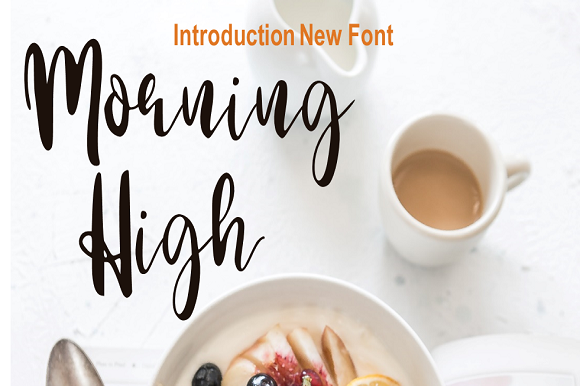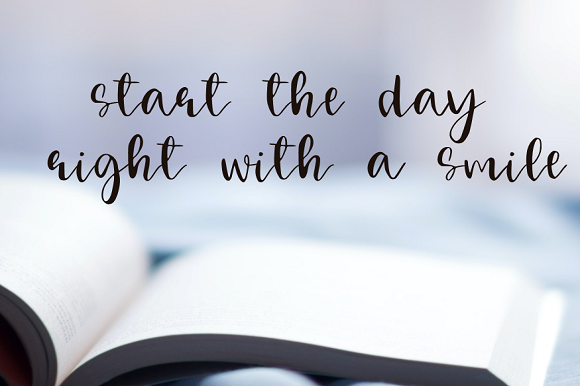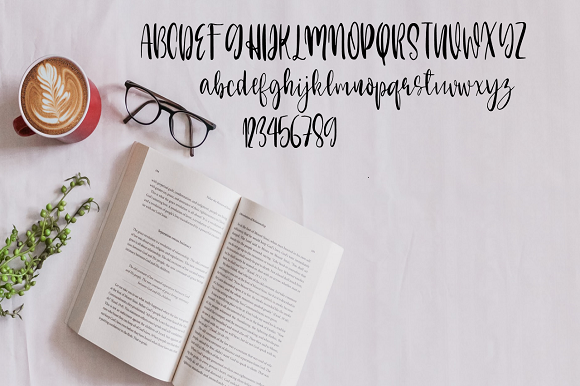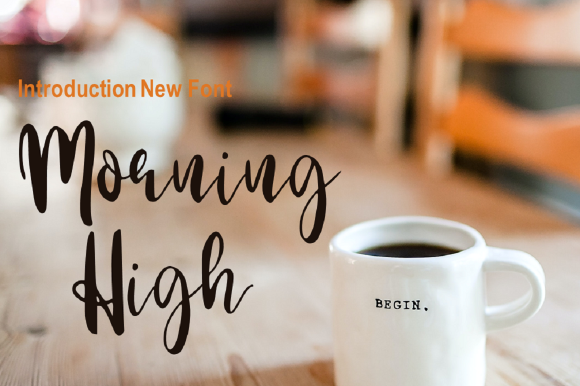
Morning High Font
About Morning High Font
Morning high is a cute and flexible handwritten font. Its natural and unique style makes it incredibly fitting to a large pool of designs. Have fun with this beautiful font and explore its endless variations.